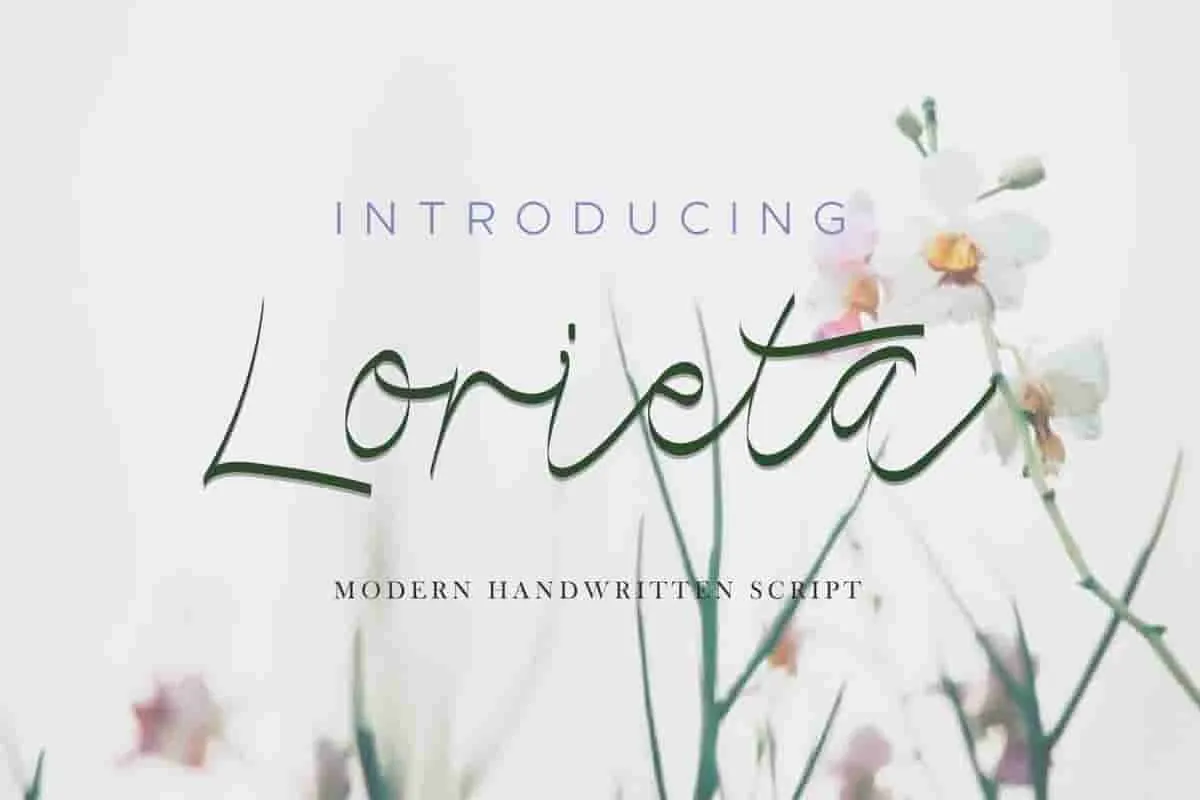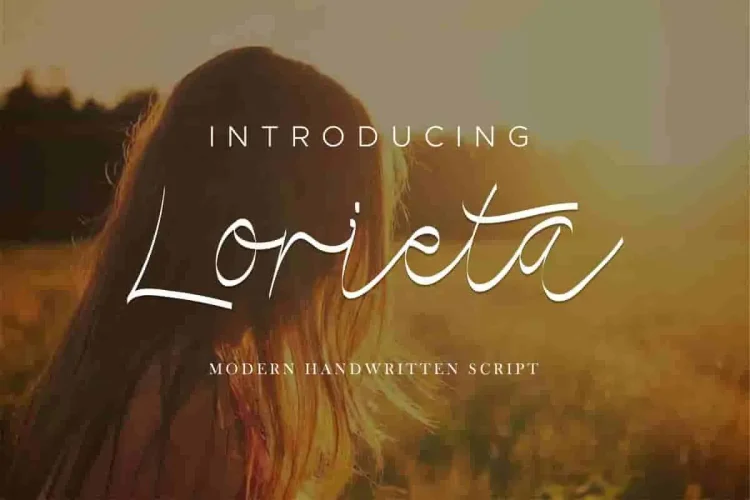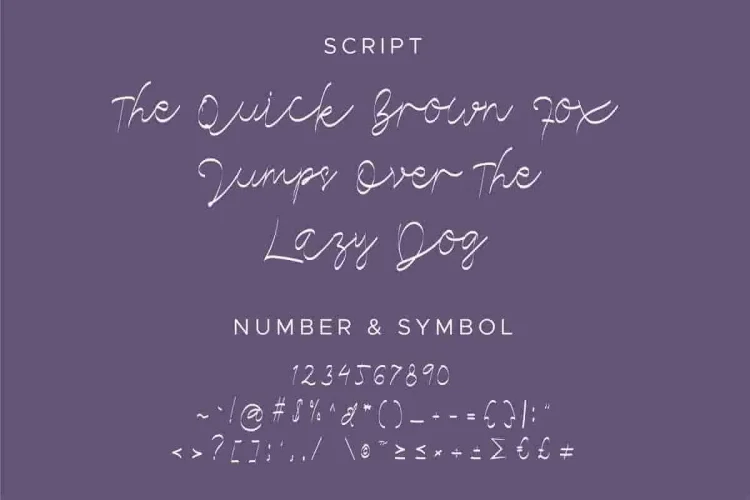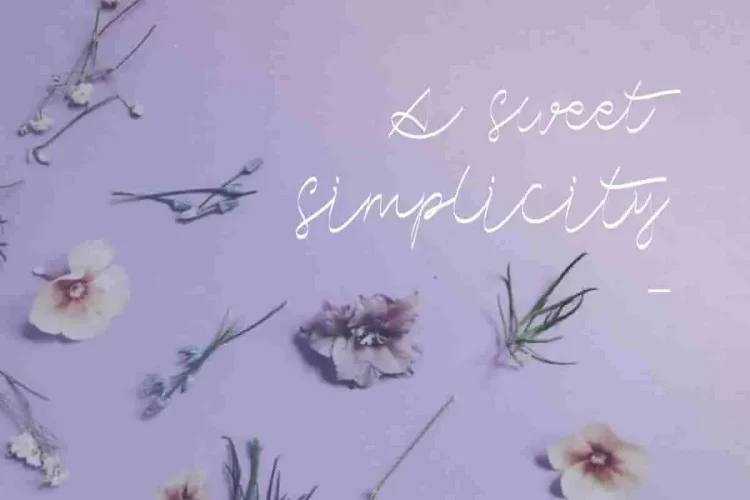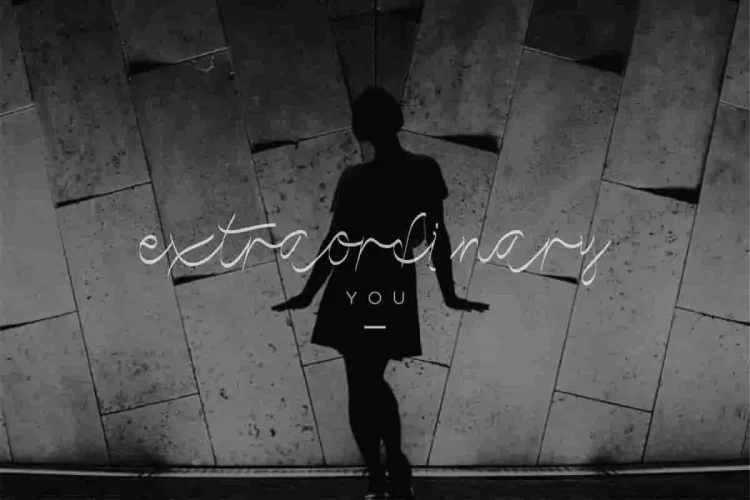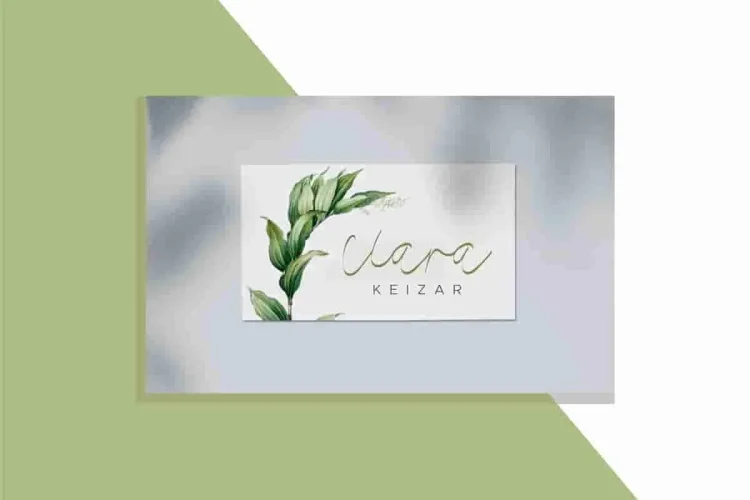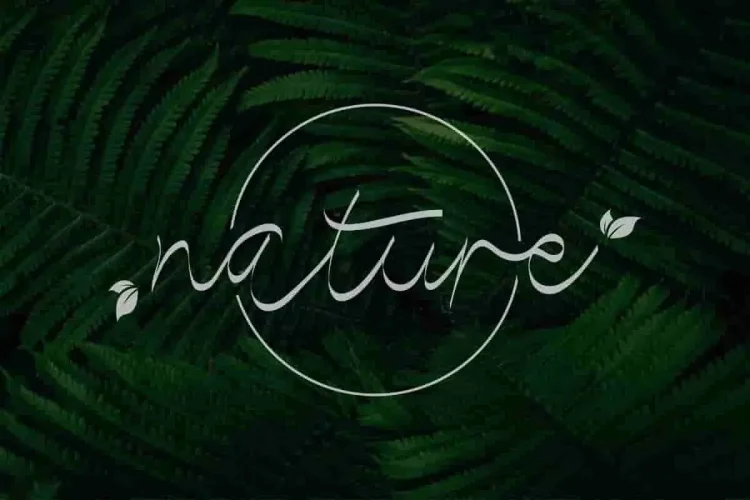
Please meet our newest font : Lorieta! This is a new a handwriting script font with natural, flowing glyphs and an elegant personal touch. If you’re looking for a font that feels genuine, stylish, and expressive, Lorieta might just be the one.
We designed Lorieta to mimic authentic handwriting, but with refined curves and smooth strokes. Every glyph looks as though it was written by hand, giving your design a natural and personal signature feel. Therefore, it’s ideal for projects where emotion, creativity, or elegance is key.
Whether you’re crafting invitations, branding a fashion label, or designing for social media, this font adds a subtle sophistication that sets your message apart.
Need to speak to a global audience? No problem. Lorieta supports multilingual glyphs, so you can confidently use it in a wide variety of languages.